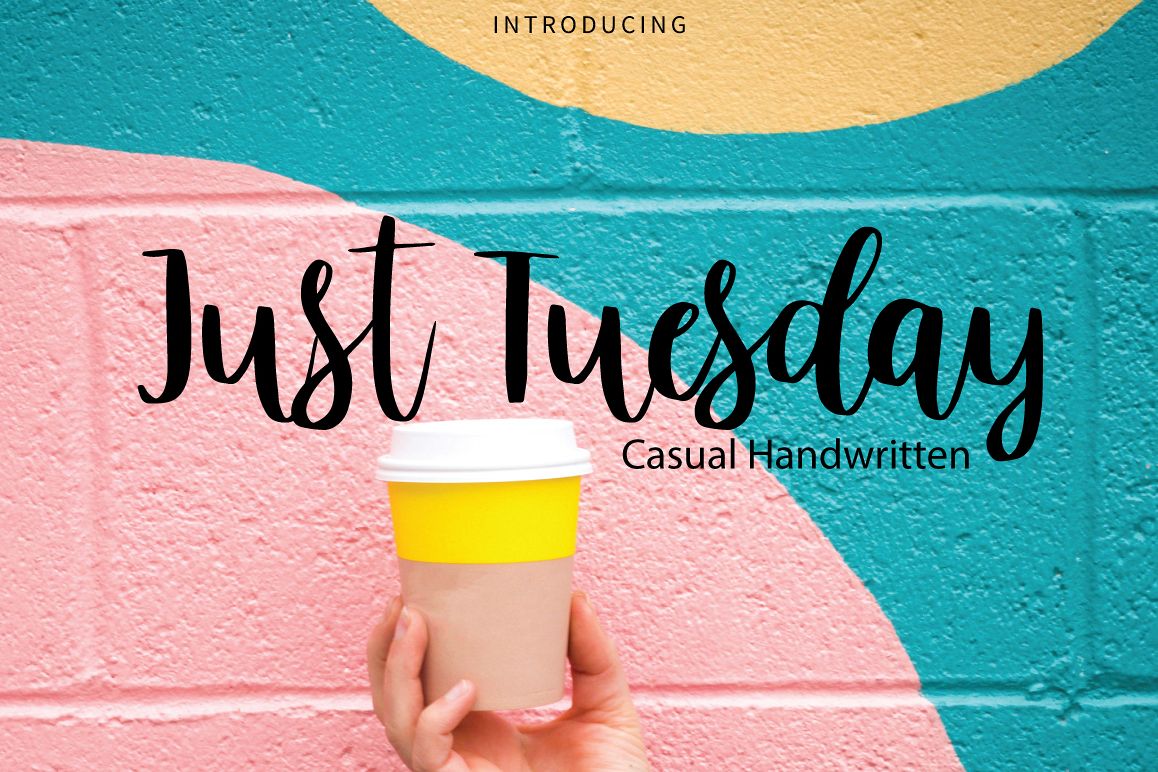
Just Tuesday
It's a casual handwritten script font.This font a perfect for every project, wedding invitation or your blog. Also with their help, you can create a logo or beautiful frame for your home. Or just use for your small business, book covers, stationery and more.